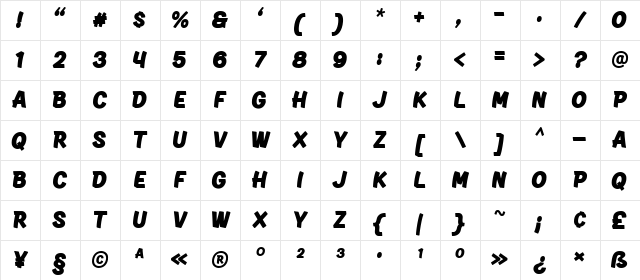
Martellas Sans is a composed and adaptable typeface that performs quietly and consistently across a wide range of design contexts.
Pro Tip: Use Martellas Sans in both headline and body roles to test its range before committing to a single application.